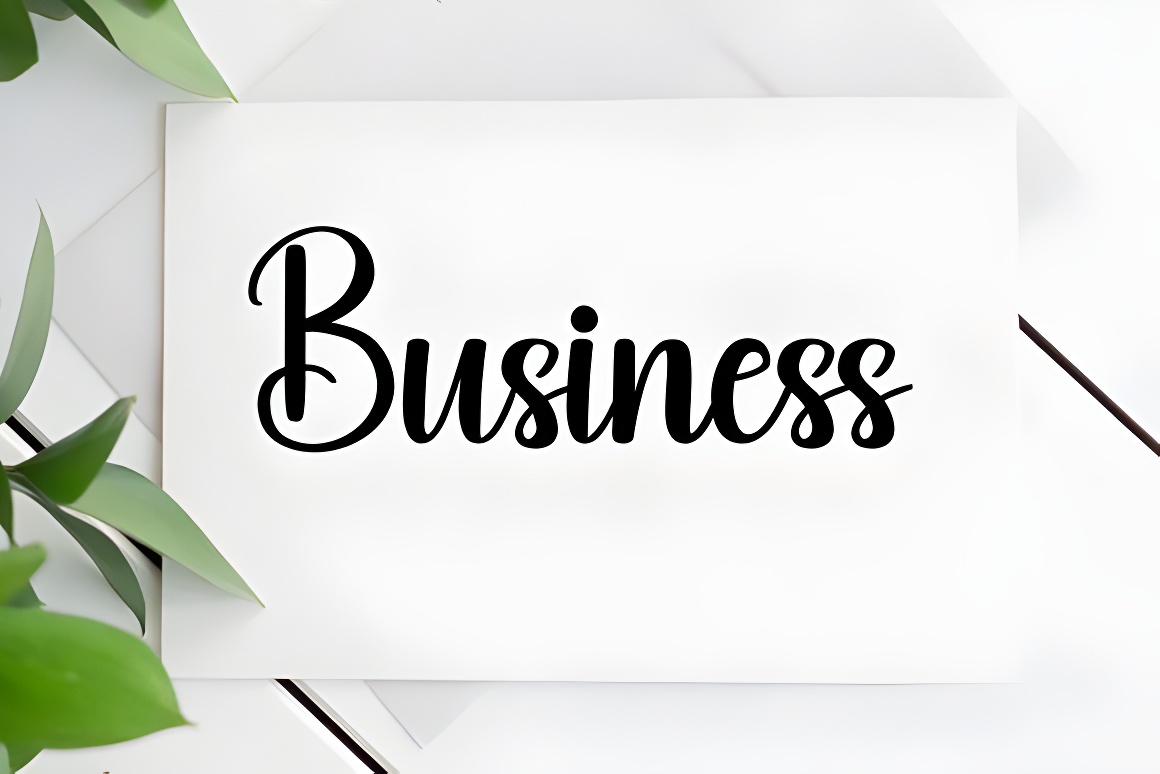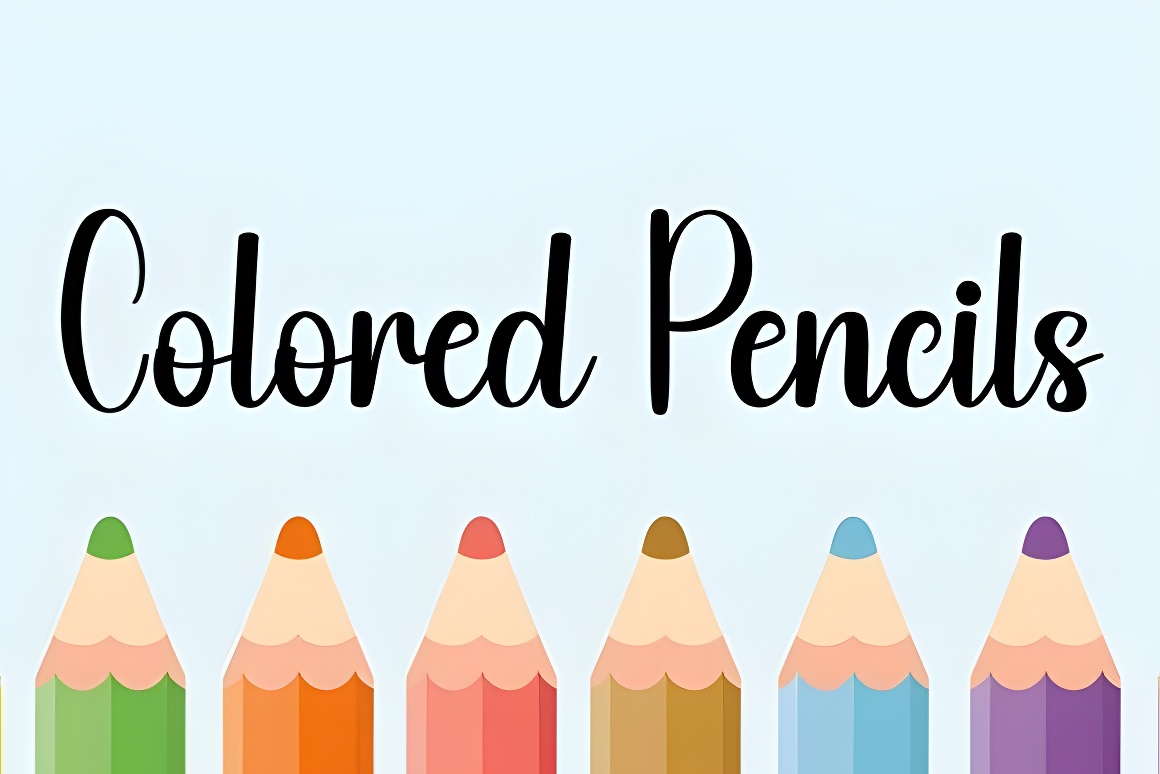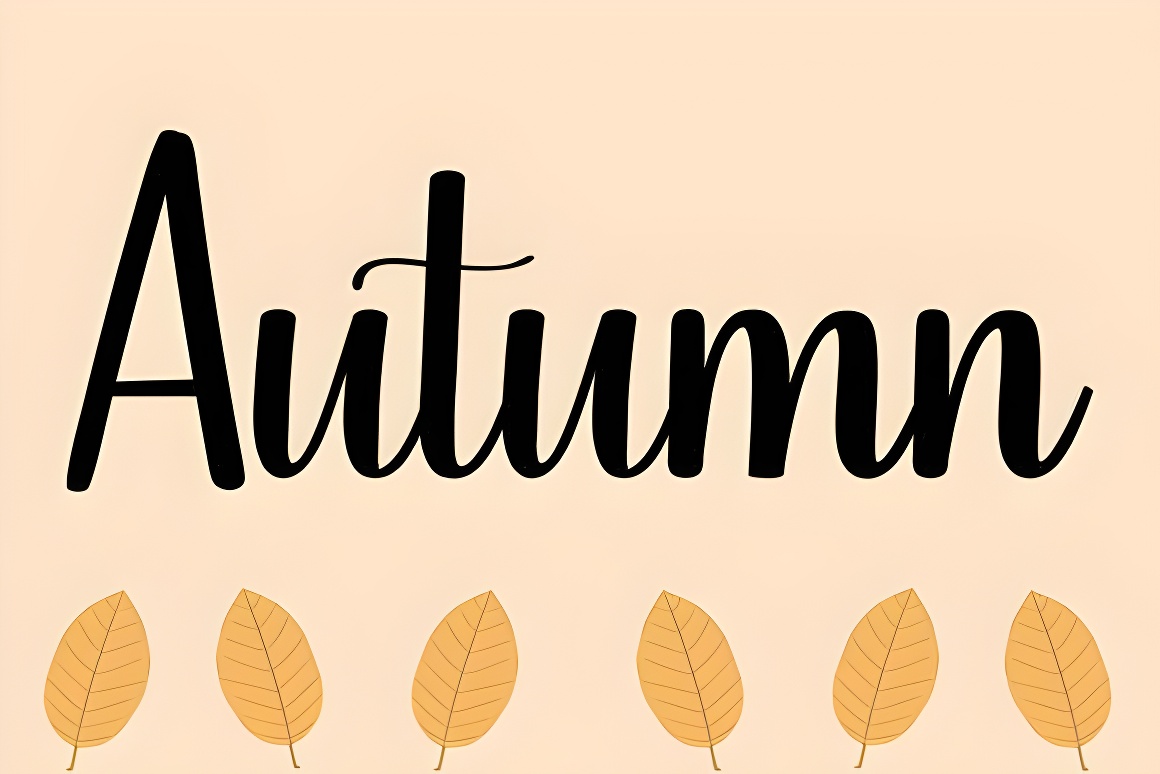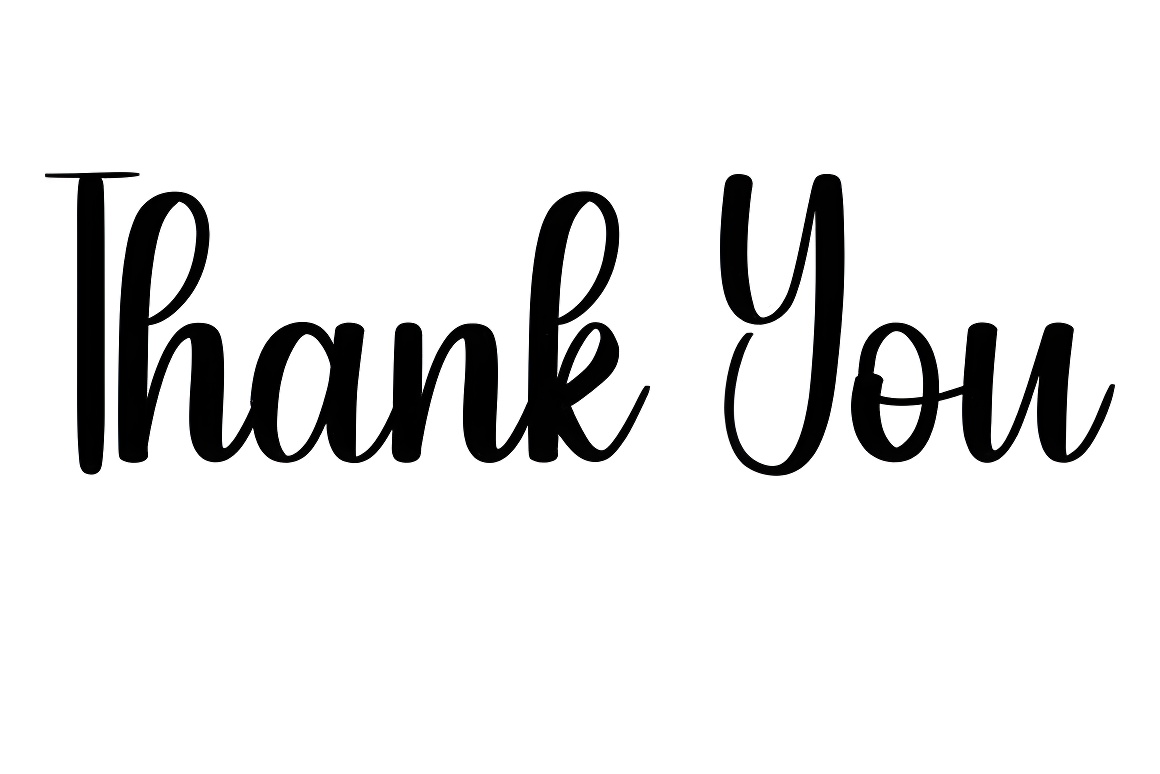
Christmas Handwritten Font - Elegant Cursive Script for Branding & Greetings
Sweet cursive Christmas font perfect for branding, logos, weddings, greeting cards & marketing. Gentle handwritten design adds joyful elegance to fashion, lookbooks & all creative projects!